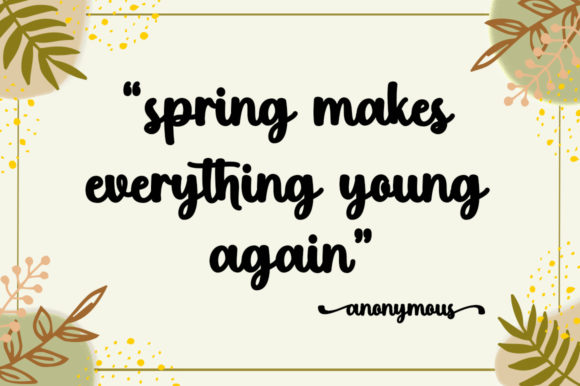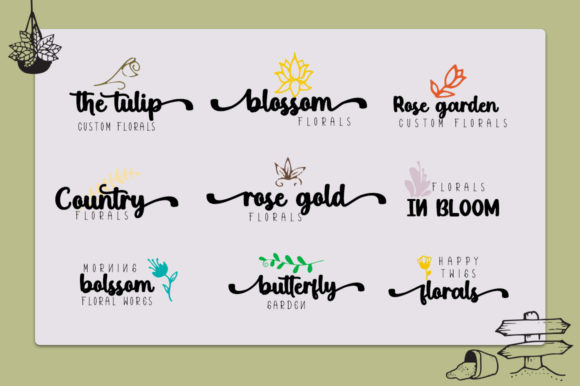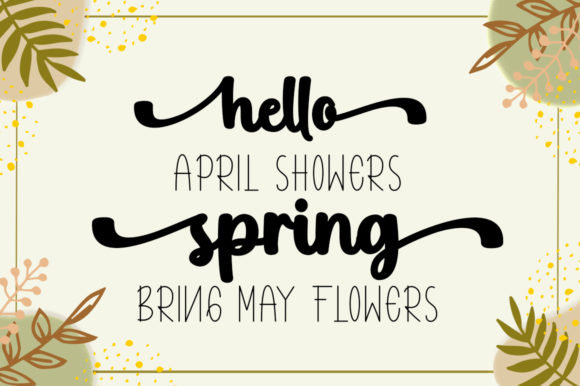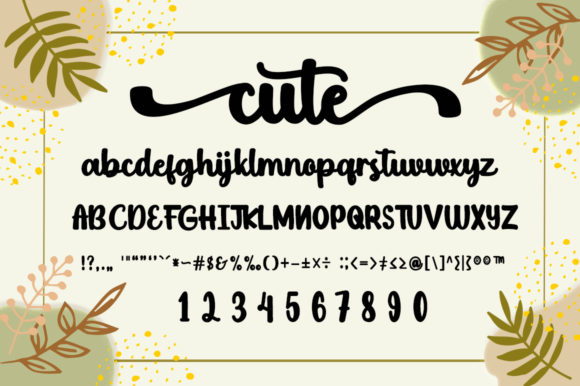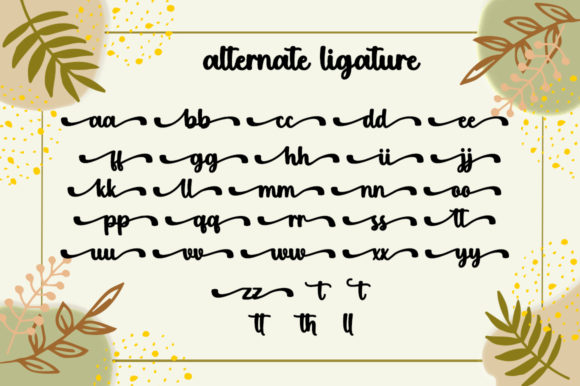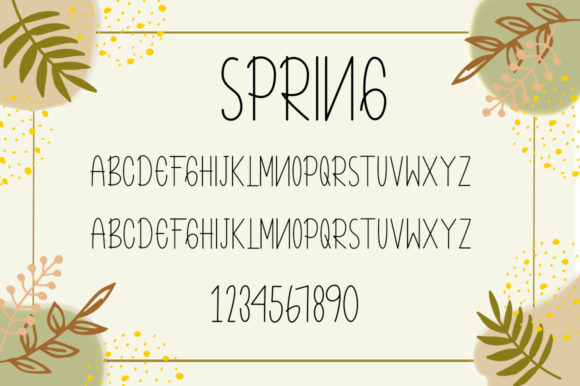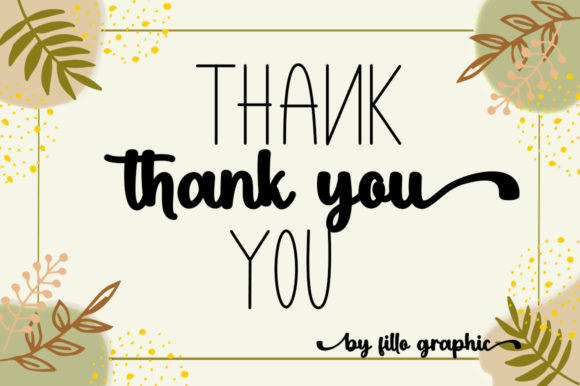
Cute Spring Font
Cute Spring is an elegant and dainty duo styled handwritten font that brings a touch of sophistication and charm to your designs. With its unique and original look, this font is sure to captivate and appeal to a wide range of crafty ideas.
The font features a delicate and graceful script style that adds an air of elegance to any design. The thin and refined letterforms create a sense of lightness and femininity, making it perfect for projects that require a touch of sophistication. Whether you’re designing letterheads, titles, or stationery, Cute Spring adds a distinctive and stylish flair.
One of the notable features of Cute Spring is its versatility. The font can be used in both formal and informal contexts, allowing you to create a variety of designs with ease. It works beautifully for elegant and refined projects, such as wedding invitations, event announcements, or high-end branding. At the same time, it can also lend a touch of elegance to more casual designs, such as greeting cards or personal stationery.
The PUA encoding of Cute Spring ensures that you have easy access to all the special glyphs and swashes included in the font. This gives you the freedom to enhance your designs with decorative elements and alternate characters, adding further uniqueness and personalization to your creations.
Additionally, Cute Spring is well-suited for spring-themed projects or designs that require a soft and whimsical touch. Its graceful letterforms evoke a sense of blooming flowers and new beginnings, making it a wonderful choice for seasonal greetings, nature-inspired illustrations, or any design that aims to capture the essence of springtime.
In summary, Cute Spring is an elegant and dainty duo styled handwritten font that adds a touch of sophistication and charm to your designs. Its versatile nature allows it to be used in a variety of projects, from formal to casual, and its PUA encoding ensures easy access to special glyphs and swashes. Embrace the elegance of Cute Spring and let it bring a unique and stylish flair to your crafty ideas.